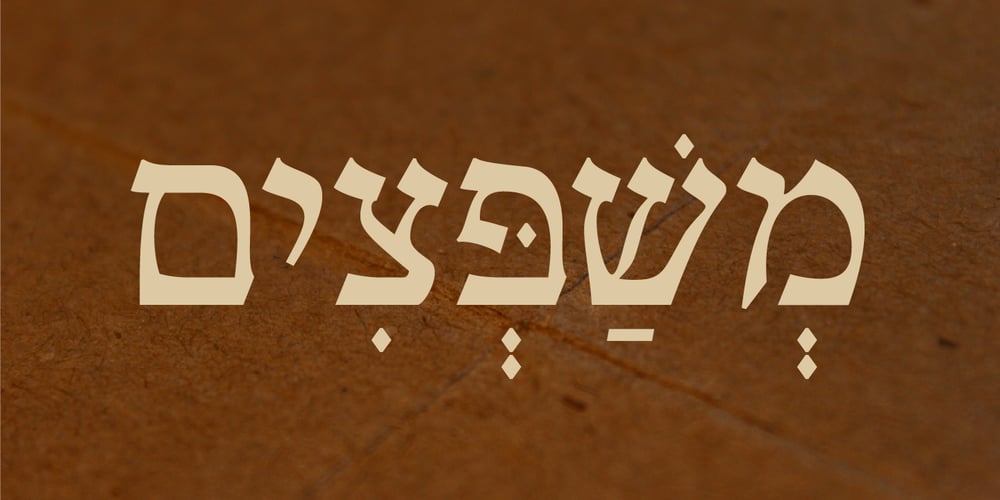
Nilus MF
Nilus MF font
Nilus MF Font Family was designed by Michael Gornstein and published by Masterfont. Nilus MF contains 6 styles and family package options. Beautiful curved shapes of this serif font family make it a high legible and distinctive companion for setting texts as well as headlines.